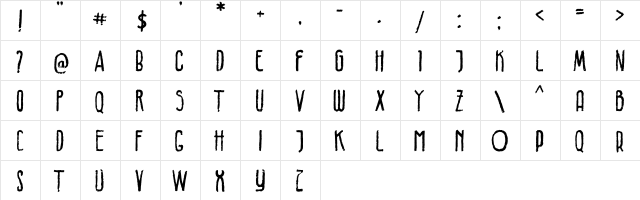
Braleno DEMO Solid Regular
Design Context for Braleno DEMO Solid Typeface
Braleno DEMO Solid is a composed and adaptable typeface that performs quietly and consistently across a wide range of design contexts.